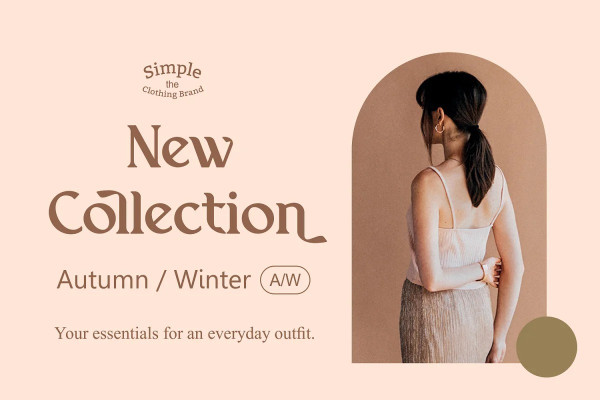
Wolfsburg Castle Font
Wolfsburg Castle Font, a timeless Serif font that exudes classic elegance and modern sophistication. With its luxurious and stylish design, this font is perfect for adding a touch of refinement to your projects. Whether you’re creating branding materials, wedding invitations, or editorial designs, Wolfsburg Castle will captivate your audience with its regal charm.
Step into a world of pure opulence with Wolfsburg Castle, a Serif font that exudes an air of regal grandeur. Its classic yet modern design combines elements of sophistication and luxury, making it the perfect choice for high-end branding, exclusive events, and upscale designs. With its meticulously crafted letterforms and elegant curves, it commands attention and leaves a lasting impression. From prestigious logos to lavish invitations, this font effortlessly conveys a sense of timeless beauty and refined taste.